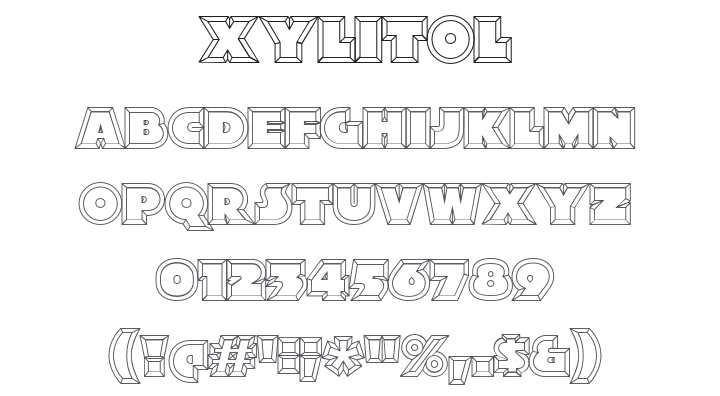
Xylitol Font Family
About Xylitol
Xylitol is a bold, geometric display typeface family designed for layering — its 10 files (Solo, Back, Front, Left, Right, Up, Down, Outline, Hollow, Stripe) stack together like Tetris blocks to create striking chromatic 3D effects, metallic shimmer, stained-glass illusions, and drop shadows. The Hollow variant alone works beautifully as a blueprint-style outline. Perfect for eye-catching posters, game titles, retro signage, and any design needing bold, dimensional typographic impact.